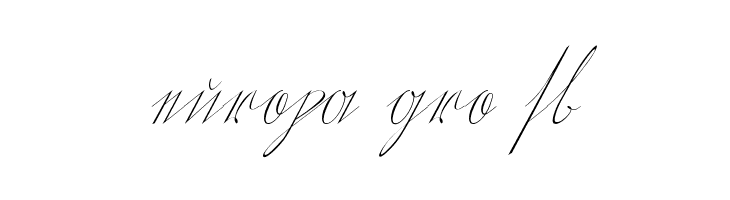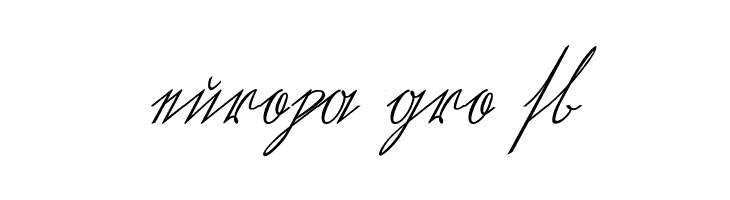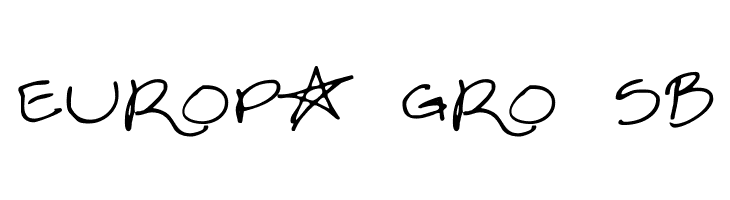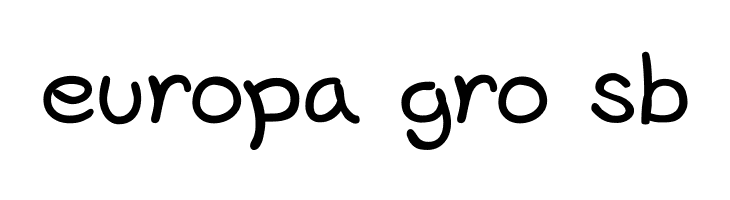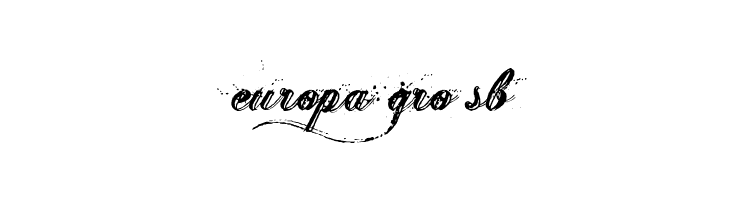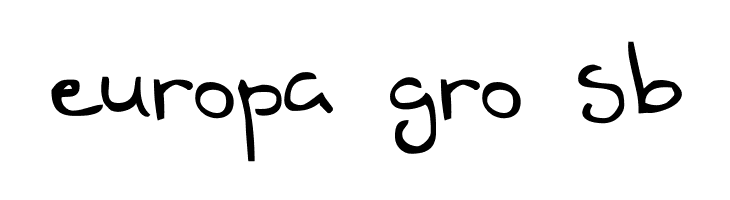
( Fonts by Arkandis Digital Foundry )
A bold, italicized font with clean lines and a modern, dynamic style.
( Fonts by Arkandis Digital Foundry )
A modern, condensed sans-serif font with clean lines and excellent readability.
( Fonts by Arkandis Digital Foundry )
A modern, condensed italic font with clean lines and excellent readability.
( Fonts by Arkandis Digital Foundry )
A modern, italic sans-serif font with clean lines and a dynamic slant.
( Fonts by Arkandis Digital Foundry )
A modern sans-serif font with geometric shapes and uniform strokes.
A playful, handwritten font with smooth curves and a casual style.
An ornate script font with grunge splatter effects and elaborate flourishes.
( Fonts by billyargel.blogspot.com - Billy Argel )
An ornate and artistic font with swirling flourishes and grunge effects.
A bold, geometric font with a double-line structure and Art Deco influences.
A bold, geometric font with a double-line structure and futuristic appeal.
An artistic font with sharp, angular lines and elegant curves, inspired by Art Nouveau.
( Copyright (c) 2010, Kimberly Geswein (kimberlygeswein.com) )
A playful, casual handwritten font with flowing, irregular strokes.
( Copyright (c) 2010, Kimberly Geswein (kimberlygeswein.com) )
A playful, casual handwritten font with fluid strokes and rounded edges.
A bold, angular font with a geometric and dynamic style.
( Fonts by Tup Wanders - www.tupwanders.nl )
A modern, high-contrast serif font with tall, narrow letterforms and elegant serifs.
( Fonts by Aluyeah Studio )
An elegant cursive script font with flowing, graceful curves.
( Fonts by Kreative Korporation - www.kreativekorp.com )
A three-dimensional geometric font with a dynamic and intricate design.
( Fonts by Kreative Korporation - www.kreativekorp.com )
A playful, handwritten font with a casual and informal style.
A bold, shattered glass effect font with dynamic, angular lines.
( Baloon )
A playful, bubble-like font with outlined characters and a whimsical touch.
A playful, decorative font with bold, rounded characters and whimsical flair.
( Fonts by www.feorag.com )
A bold, graphic icon set with controversial and provocative imagery.
Bold pictogram font with universal signage icons.
A set of bold, clear pictographic symbols for outdoor activities.
( Copyright (c) 2011 by Sorkin Type Co (www.sorkintype.com) )
A bold, serif font with strong, thick strokes and a classic, authoritative style.
( Fonts by Maelle.K - Thomas Boucherie )
A bold, cursive script font with dynamic loops and flowing connections.
An ornate Blackletter font with bold, angular strokes and decorative flourishes.
A traditional Blackletter font with ornate and angular strokes, ideal for historic and formal designs.